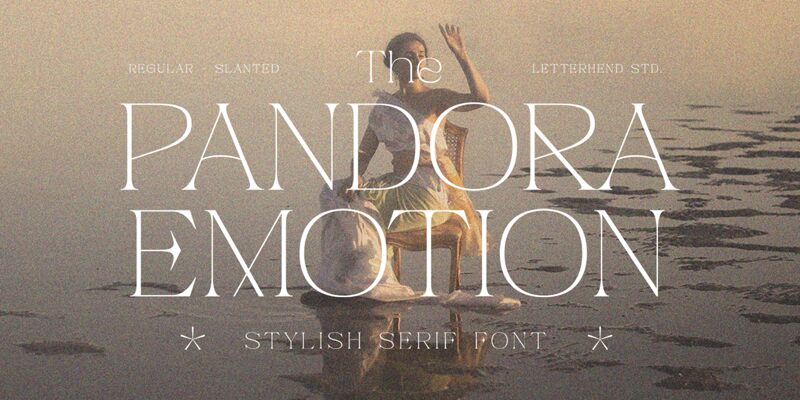
Pandora Emotion, a captivating serif font created by Letterhend Studio, exudes a timeless elegance and emotional depth. With its graceful curves, delicate serifs, and harmonious balance, this typeface evokes a sense of sophistication and refinement. The subtle variations in stroke thickness and the subtle interplay of thick and thin lines lend a unique character to the letterforms, making Pandora Emotion a visually striking and memorable choice.
This font's versatility allows it to shine in a variety of design contexts, from editorial layouts and book covers to branding and packaging applications. Its refined aesthetic makes it an excellent selection for projects that require a touch of sophistication, such as luxury goods, high-end fashion, or artistic publications. Pandora Emotion's versatility also extends to wedding stationery, invitations, and other ceremonial materials, where its elegance and timelessness can create a lasting impression.